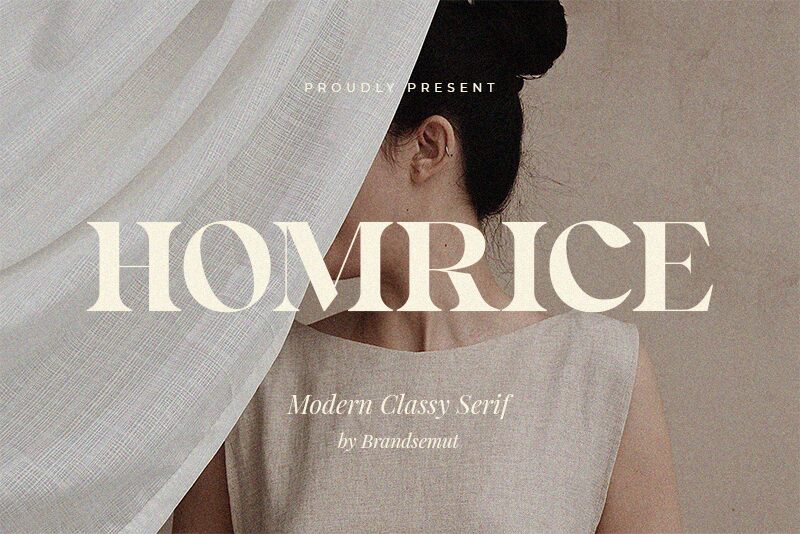
Homrice, a modern serif font designed by BrandSemut, exudes a bold and contemporary aura. With its strong and pronounced letterforms, Homrice is perfect for branding projects that require a touch of sophistication and elegance.
Its clean lines and sharp edges make it an ideal choice for logos, headlines, and packaging design. This versatile font can also be used in editorial layouts to add a refined touch to magazines or books.
Homrice's bold weight ensures maximum impact, making it the go-to choice for any project that demands attention and style.